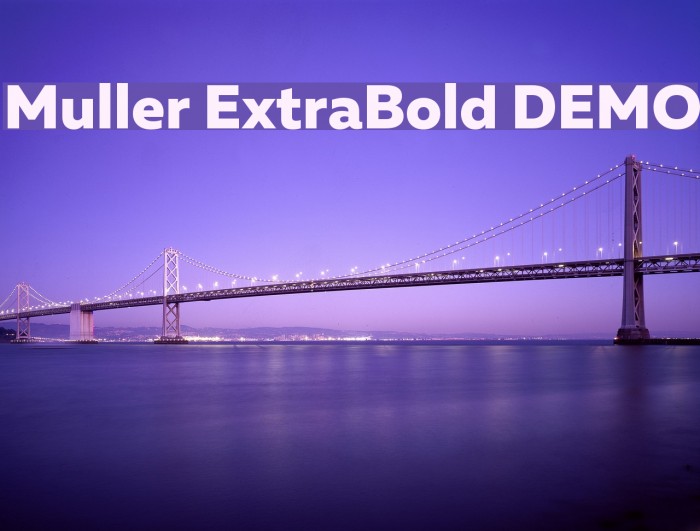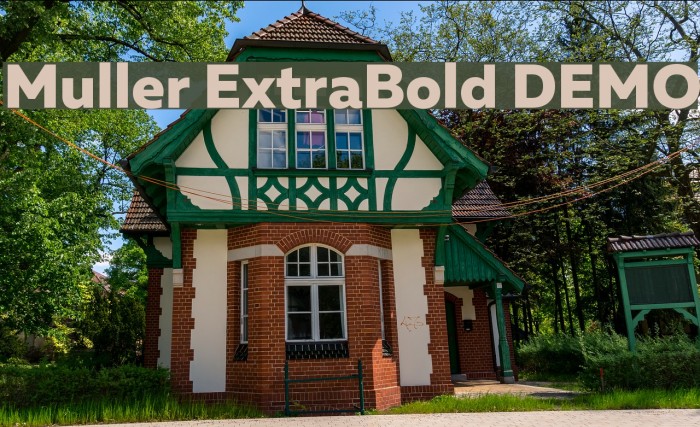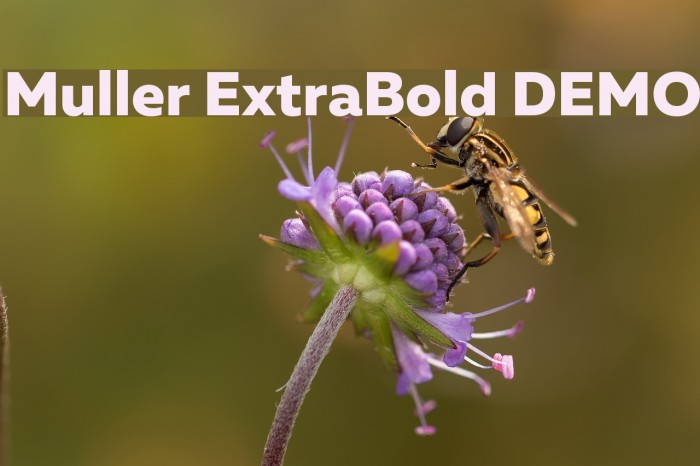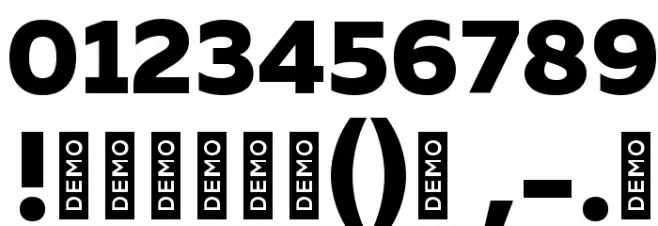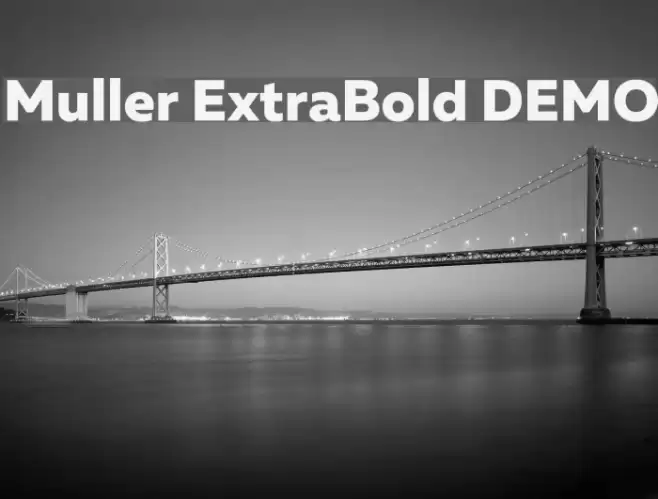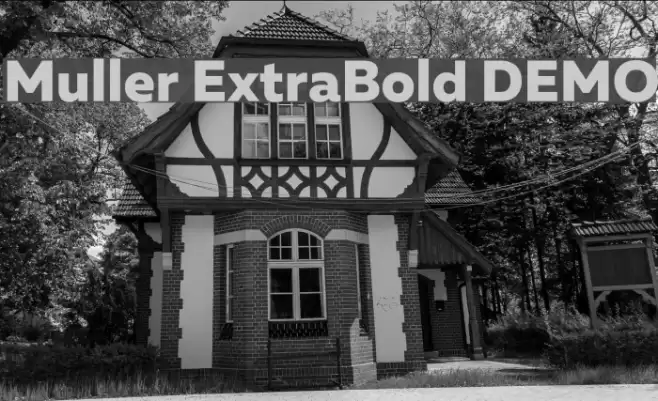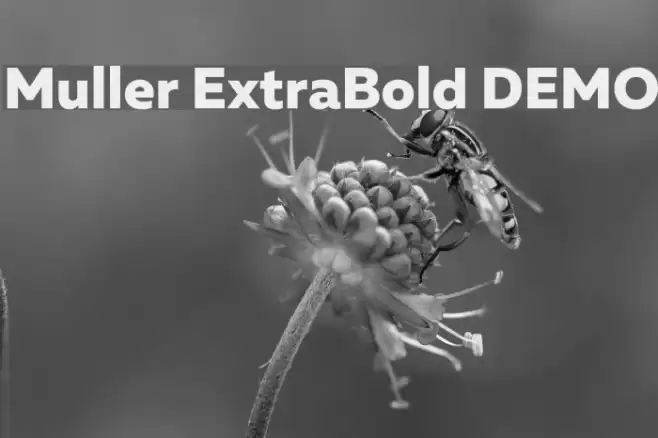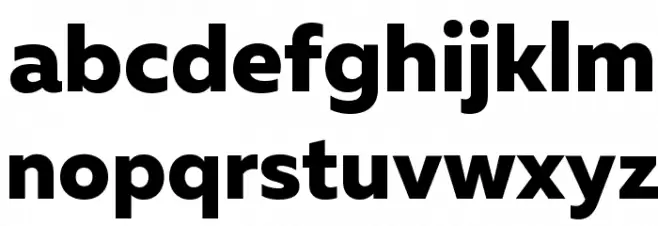
Muller ExtraBold DEMO Font
This font showcases a bold and modern sans-serif style with clean lines and a strong presence. The uppercase and lowercase letters are well-proportioned, providing excellent readability. The numerals are distinct and clear, making them suitable for various applications. The special characters are designed to complement the overall style, maintaining consistency across the typeface. The font's bold weight and uniform stroke width give it a robust and confident appearance, ideal for making a statement in any design project.
- Proposed Projects: Ideal for branding, headlines, posters, and digital media where a strong, modern look is desired.
- Use Case: Headlines, Logos, Branding